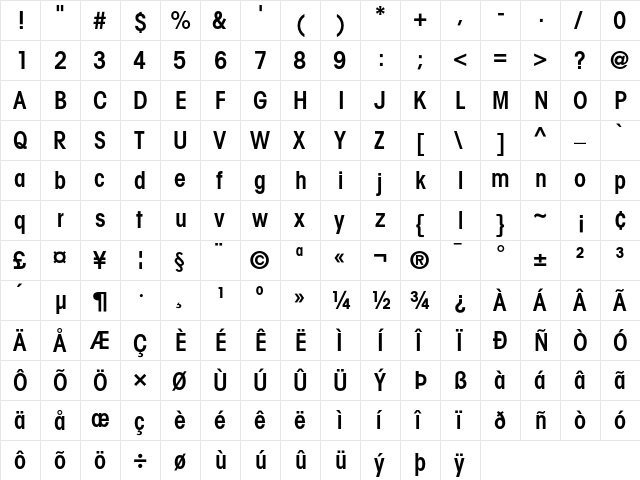
ITC Avant Garde Gothic Condensed Demi
Design Context for ITC Avant Garde Gothic Typeface
ITC Avant Garde Gothic has the quiet confidence of well-executed sans-serif typography: versatile, unobtrusive, and dependable at any size. The condensed width makes it efficient for tight spaces without sacrificing legibility.
Font Pairing: Works well alongside a characterful serif or display font that can carry the expressive load while ITC Avant Garde Gothic handles the functional copy.
Pro Tip: Use ITC Avant Garde Gothic tightly set in headlines and banners — its condensed proportions make it ideal for maximum impact in minimum horizontal space.